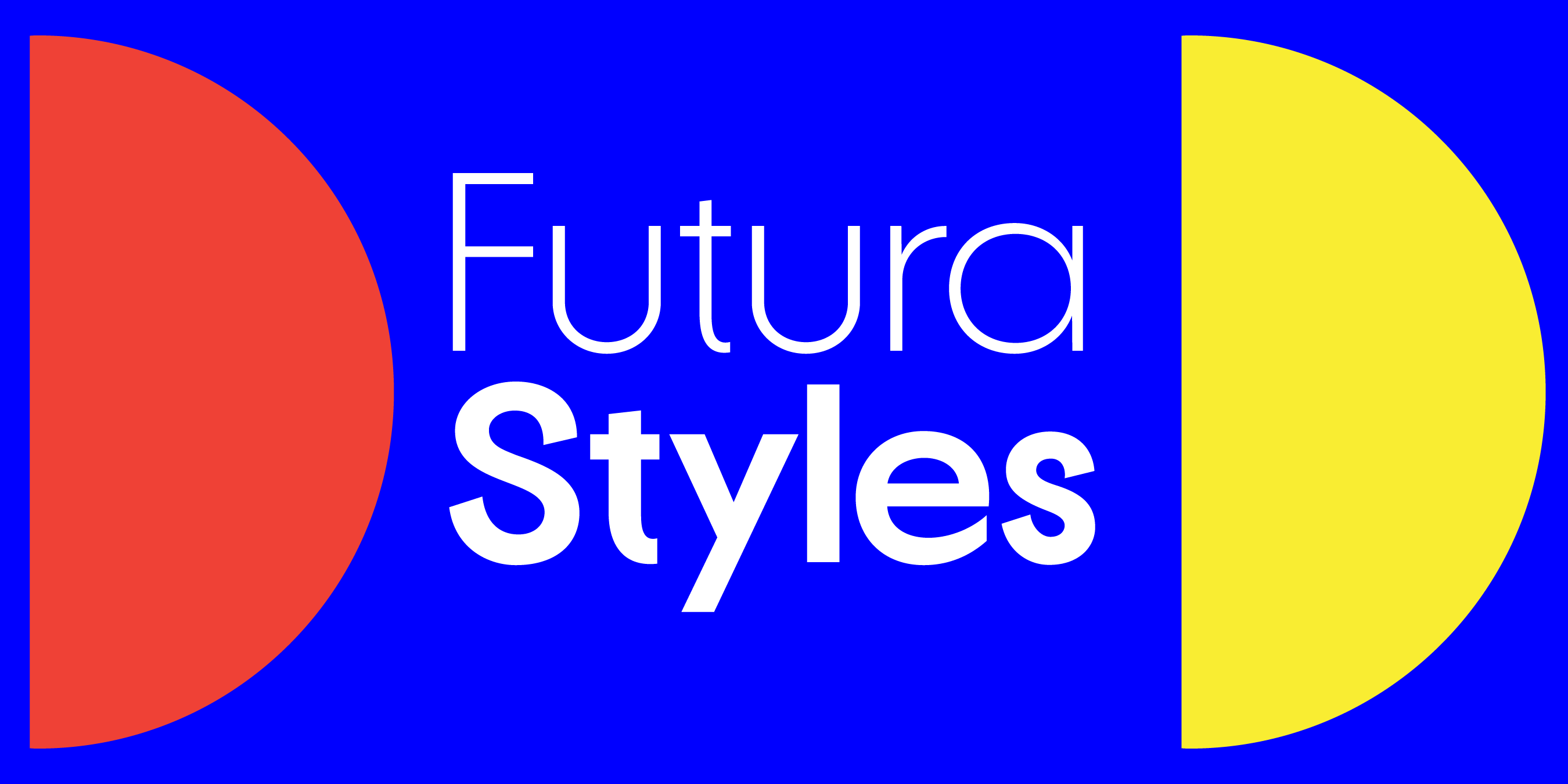
Futura’s geometric simplicity has influenced branding for many iconic companies since its creation in 1927 by Paul Renner. As a representation of the Bauhaus movement, the geometric Futura communicates clarity, confidence, and modernity through its clean, simplified shapes. From fashion to technology, brands choose Futura and its variants for their versatility and timelessness. This article shows how 13 top brands use Futura or Futura-inspired fonts and introduces Scal, our modernized take on Futura, perfect for branding in art, fashion, and wellness.
1. Nike
Nike’s use of Futura Extra Bold Condensed Oblique reflects the brand’s modern athleticism. The bold, geometric structure of Futura amplifies the brand’s association with speed and strength, while its sharp angles echo the powerful simplicity of the Nike swoosh. This typeface complements Nike’s reputation for innovation and energy.
2. Supreme
Supreme’s iconic red box logo uses Futura Heavy Oblique, underscoring the brand’s minimalist and urban style. The bold, slanted typography lends a robust and modern look to the logo, making it synonymous with streetwear culture and edgy simplicity.
3. PayPal
PayPal’s updated 2014 logo was influenced by Futura Bold Oblique, which introduced a custom font based on LL Supreme, a modern version of Futura. Futura’s design helped PayPal project a sense of reliability and innovation in digital payments, with sharp, modern angles that symbolized progress and security. The 2024 logo version is now not slanted but set in Roman (straight) letters.
4. Omega
Omega’s custom font is based on Futura (originally Futura Medium), which aligns with the brand’s aesthetic of innovation and precision. The font’s geometric precision reflects Omega’s focus on technical mastery and timeless elegance, reinforcing its reputation for creating meticulously crafted watches.
5. Dolce & Gabbana
Though Dolce & Gabbana leans into the Futura aesthetic across its entire branding. The sharp angles and clean lines reflect the brand’s modern take on luxury, aligning with Futura’s association with contemporary design.
6. Louis Vuitton
Louis Vuitton incorporates Futura for both logo and body copy, using its geometric frame to show modernity and exclusivity. The simplicity of the design reflects the timeless luxury and sophistication inherent in the Louis Vuitton brand.
7. Party City
Party City uses a bold Futura logo, though its branding across other platforms doesn’t consistently feature the font. The bold geometric design of the logo captures the brand’s playful, energetic spirit, ensuring it stands timeless and strong in the festive retail space.
8. Aerin
Aerin’s branding uses Futura for its logo and body copy, paired with a Didot for its headlines. This combination emphasizes the brand’s classic yet contemporary luxurious aesthetic, with Futura’s clean appearance perfectly complementing the elegance of a Didot.
9. The Gentlewoman
The Gentlewoman magazine uses Futura for its logo and body copy, aligning with the publication’s clean, thoughtful, and modernist design. The font’s geometric shapes add to the minimalist appearance of the magazine’s overall identity while still maintaining a sophisticated presence.
10. Vitra
Swiss furniture brand Vitra uses Futura in its branding to emphasize its focus on modern, functional design. The font’s geometric clarity and simplicity mirror Vitra’s design philosophy of creating timeless and innovative furniture.
11. SFMOMA
SFMOMA historically used Futura for its logo and signage, though the museum updated its visual identity in 2016 with a custom font that combines elements of Futura and a gothic style. This update helps the museum remain modern and versatile while still acknowledging the geometric roots of Futura in its overall branding.
12. The Guggenheim Museum
The Guggenheim Museum uses “Verlag,” a custom typeface designed by Jonathan Hoefler based on Futura and Frank Lloyd Wright’s architectural lettering. This typeface helps maintain the museum’s architectural elegance while drawing on the geometric precision of Futura.
13. Armani
Armani uses Futura as their main text font for their entire product line, including fashion, fragrance, and furniture. In the website screenshot above you can see that the logo is set in a serif typeface—paired and balanced with the clean, pointy Futura for headlines and body copy.
About Scal:
Scal is a modernized take on Futura, designed with sharp, pointy tips in letters like A, M, and W, and crisp terminals in S and lowercase t. With 9 fonts weights, Scal is perfect for art, fashion, and wellness branding. Its geometric precision makes it ideal for both headlines and body copy, allowing designers to easily mix light and bold styles for added emphasis. Whether used in all caps or sentence case, Scal communicates elegance and modernity, making it a great fit for brands looking for sharp, contemporary design.